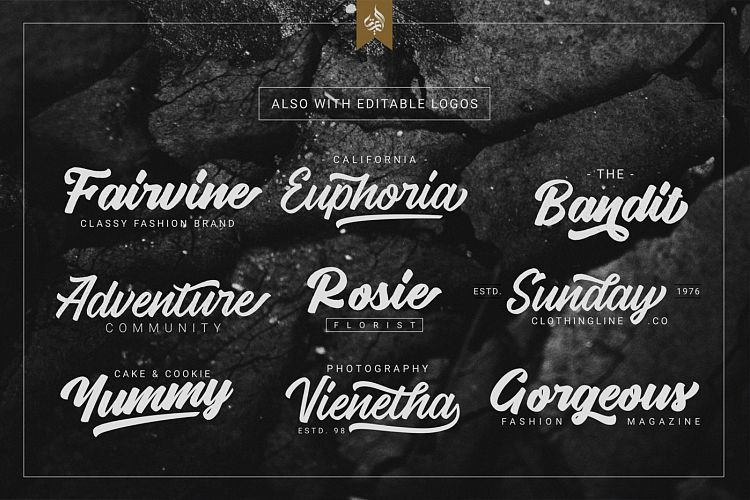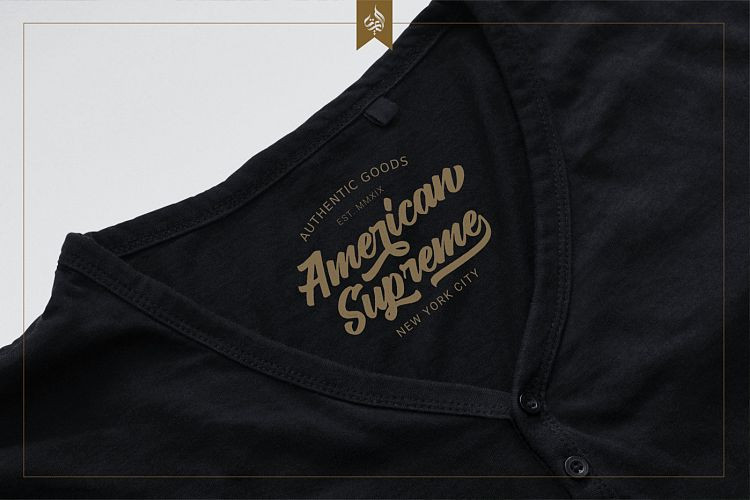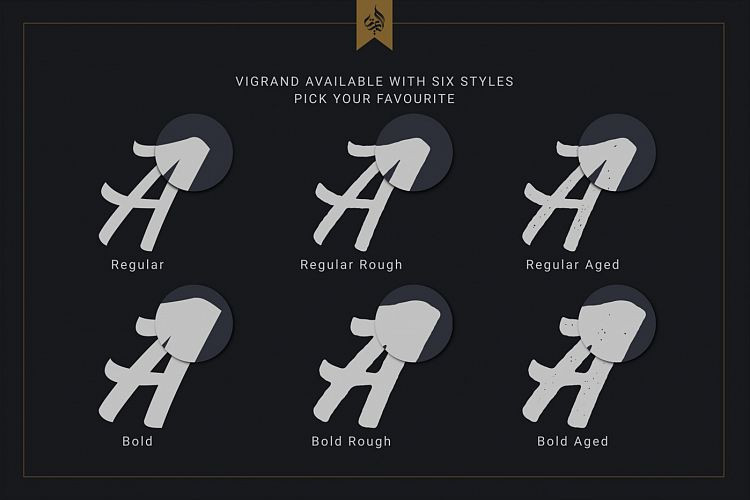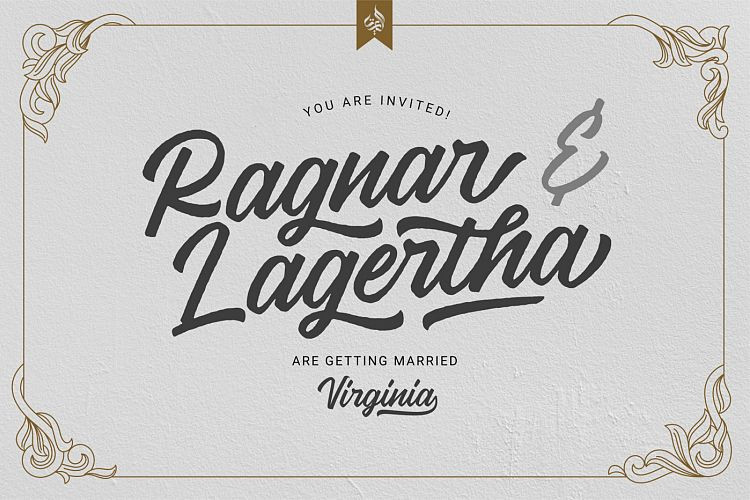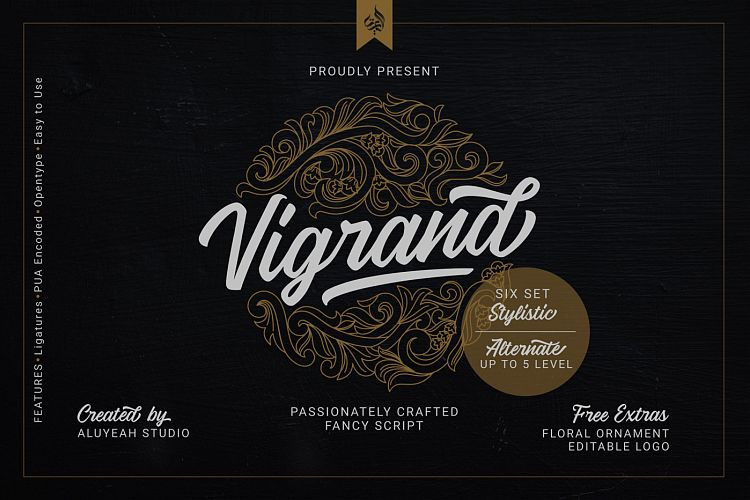
Vigrand Script Free Demo
Vigrand Script Font
A stylish and quirky new bold script. Inspired by vintage style and combination with Handwriting style. Introducing Vigrand Font. Vigrand is a stunning handwritten font with a vintage feel. Use it to add a unique charm to any design project. With 6 stylistic, regular, regular rough, regular aged, bold, bold rough, and bold aged. Up to 5 level alternates.